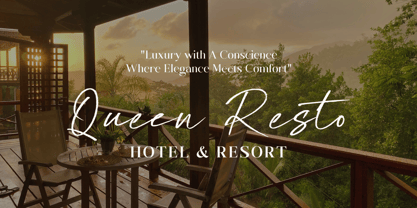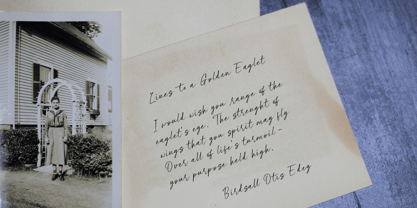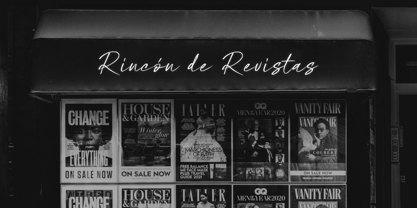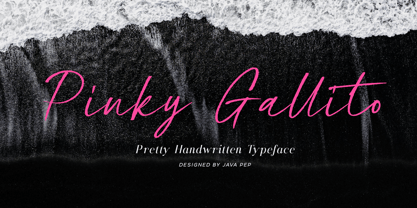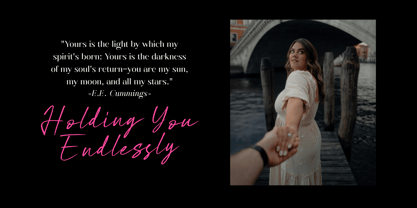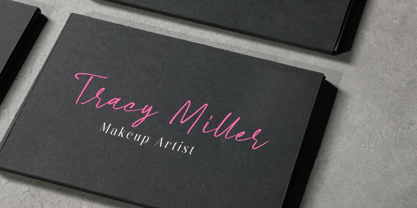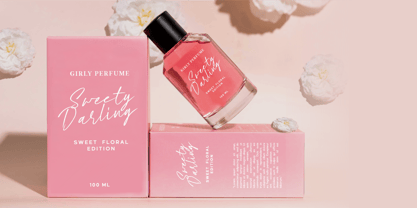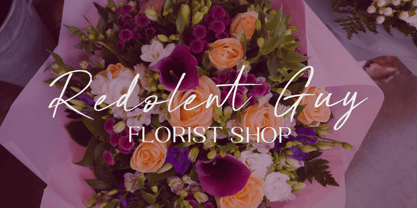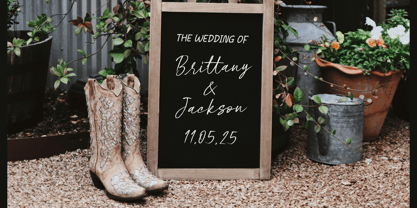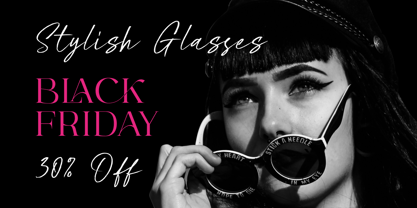
Pinky Gallito
by Java Pep
The Pinky Gallito Font Family was designed by Java Pep and published by Java Pep. Pinky Gallito contains 2 styles and family package options.
Pretty handwritten typeface called Pinky Gallito, this font was built with the original character’s stroke, that rough shape that is affected by the ink pen. Pinky Gallito font comes with OpenType features such as ligatures, alternates, contextual alternates, and multilingual support for more than 25 languages. This font is perfect for branding, logotype, quote, headline, publishing, signatures, etc.